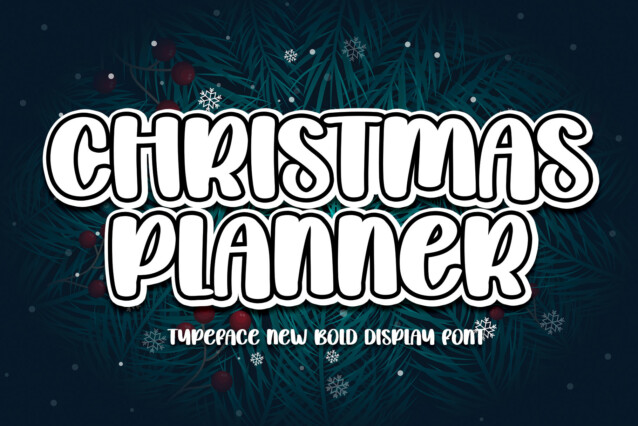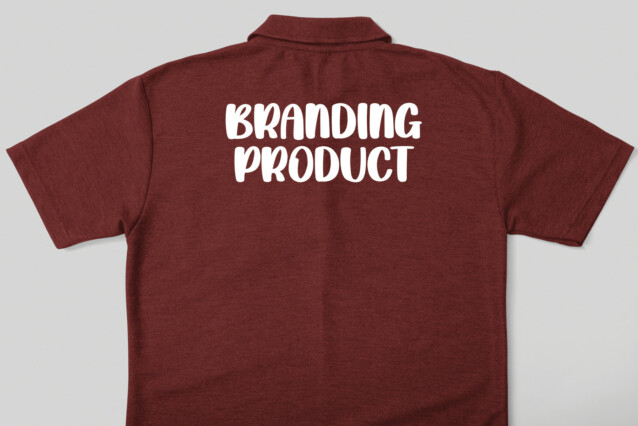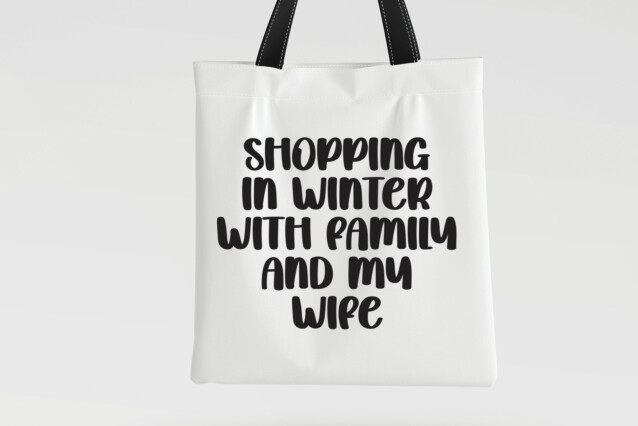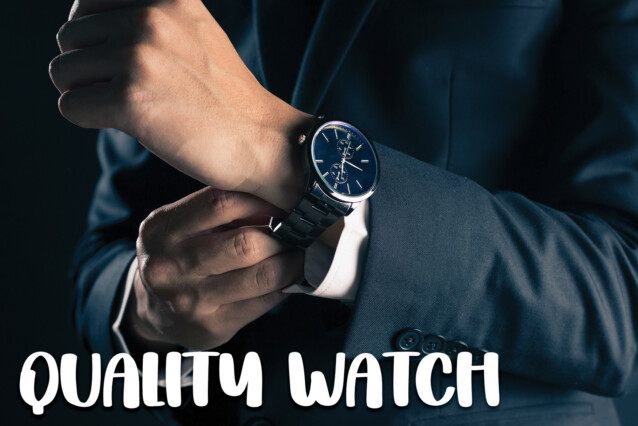
Christmas Planner Font
Christmas Planner Font is a fun and friendly handwritten display font. Add it confidently to your creative ideas and you will love the results!